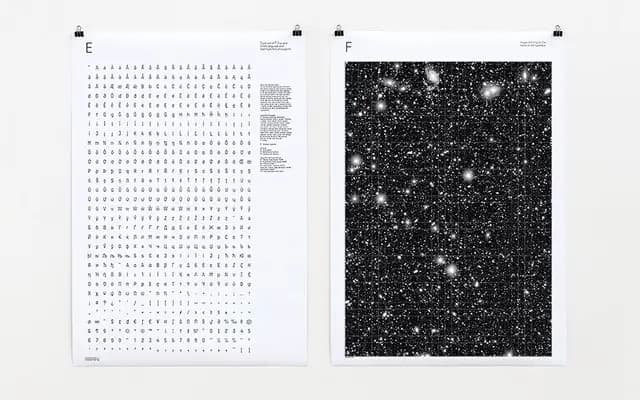
A Swiss grotesque with a companion monospaced variant and an Arabic cut available on request.
T-Star follows the formal logic of the nineteenth-century grotesque: barely tapered junctions, flattened round shapes and a uniform stroke width with almost equal upper and lower bodies. Five weights from Light to Heavy are offered with italics, while the T-Star TW subfamily provides a monospaced version in Regular, Medium and Bold for tabular and technical work. An Arabic variant extends the family's reach beyond Latin.
T-Star displays classic grotesque traits: barely tapered junctions, flattened round shapes, low contrast with uniform stroke width, and a narrow M. These are defining characteristics of the nineteenth-century grotesque tradition.